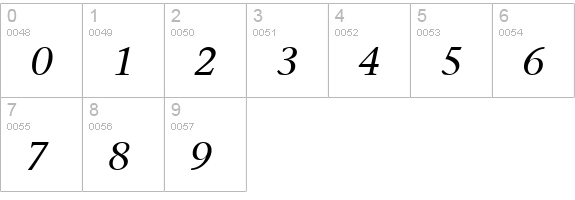
Prudential kursiv font is a sophisticated and elegant typeface that exudes a sense of professionalism and class. Its sleek and stylish design makes it perfect for a wide range of projects, from branding to editorial design. The graceful curves and unique letterforms of Prudential kursiv font add a touch of refinement to any text, making it stand out from the crowd. And the best part? Prudential kursiv font is available for free download at FontsMarket.com. This means you can enjoy the beauty and versatility of this font without having to spend a penny. So why wait? Add Prudential kursiv font to your font collection today and elevate your designs to the next level.